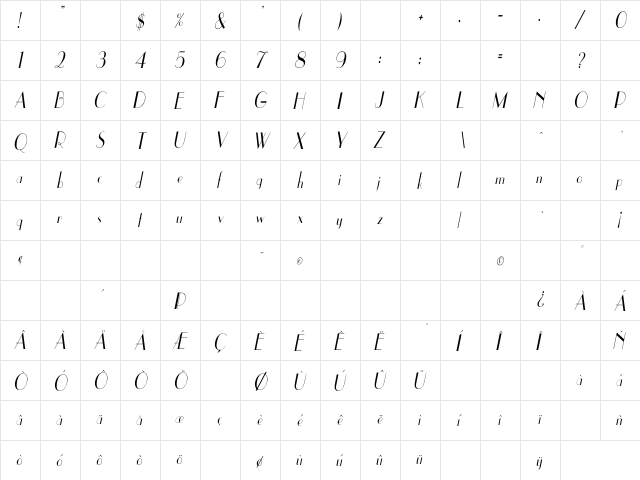
UppEa Cn Italic Regular
Design Context for UppEa Cn Italic Typeface
UppEa Cn Italic is a composed and adaptable typeface that performs quietly and consistently across a wide range of design contexts. Its italic angle brings a sense of urgency and motion to the letterforms.
Pro Tip: Try UppEa Cn Italic for annotation and caption copy alongside an upright companion — the contrast in angle creates a dynamic but ordered typographic system.